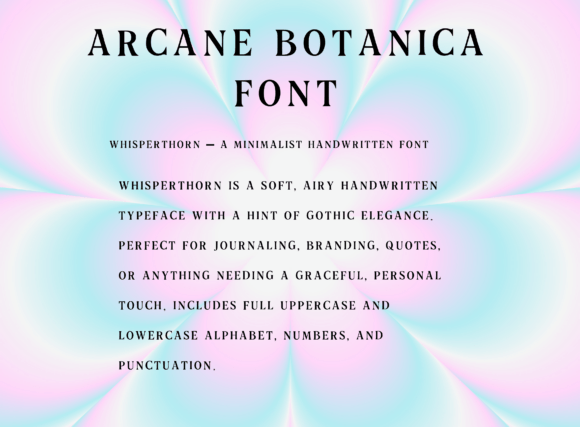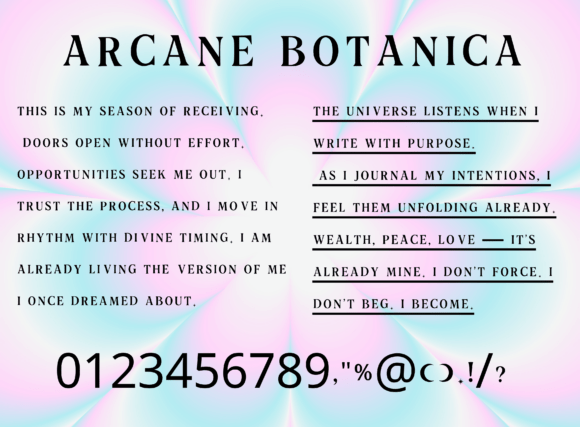
Discover the Enchanting World of Arcane Botanica Font
Are you a designer or crafter looking for a font that can add a touch of magic to your projects? Look no further than the Arcane Botanica Font. This whimsical serif font is specifically crafted for enchanting design projects, making it perfect for mystical branding, magical book covers, celestial quotes, tarot cards, and elegant display titles.
A Font that Embodies Mystery and Elegance
Arcane Botanica features a clean, serif structure with subtle vintage flair, giving it a unique and captivating appearance. The font includes uppercase letters, numbers, and punctuation, making it versatile and easy to use. Whether you’re designing a spellbook, a dreamy logo, or an artistic Instagram post, Arcane Botanica brings a touch of mystery and elegance to every letter.
Ideal for Spiritual, Feminine, Gothic, or Fantasy Aesthetics
This font is ideal for designers and crafters who specialize in spiritual, feminine, gothic, or fantasy aesthetics. The elegant and whimsical design of Arcane Botanica makes it perfect for projects that require a touch of mysticism and sophistication. From mystical branding to magical book covers, this font is sure to add a level of enchantment to your designs.
Arcane Botanica is a versatile font that can be used for a variety of design projects, including:
• Mystical branding: Create a magical brand identity with Arcane Botanica’s elegant and whimsical design.
• Magical book covers: Add a touch of mystery and enchantment to your book covers with this captivating font.
• Celestial quotes: Share inspiring and mystical quotes with Arcane Botanica’s beautiful and elegant design.
• Tarot cards: Create mystical and enchanting tarot cards with this font’s unique and captivating appearance.
• Elegant display titles: Use Arcane Botanica to add a touch of sophistication and elegance to your display titles.
Why Choose Arcane Botanica Font?
There are many reasons why designers and crafters choose Arcane Botanica Font for their projects. Here are a few:
• Unique and captivating design: Arcane Botanica’s whimsical serif design makes it stand out from other fonts.
• Versatile: This font includes uppercase letters, numbers, and punctuation, making it easy to use for various design projects.
• Elegant and mystical: Arcane Botanica’s design embodies mystery and elegance, making it perfect for spiritual, feminine, gothic, or fantasy aesthetics.
Tips for Using Arcane Botanica Font
Here are a few tips for using Arcane Botanica Font in your design projects:
• Experiment with font sizes: Arcane Botanica looks great in various font sizes, from large display titles to smaller body text.
• Pair with other fonts: Try pairing Arcane Botanica with other fonts to create a unique and captivating design.
• Use for headings and titles: This font is perfect for headings and titles, adding a touch of elegance and mysticism to your designs.
• Don’t be afraid to get creative: Arcane Botanica is a versatile font that can be used in many different ways, so don’t be afraid to experiment and try new things.
In conclusion, Arcane Botanica Font is a unique and captivating font that is perfect for designers and crafters looking to add a touch of magic to their projects. With its elegant and whimsical design, this font is ideal for spiritual, feminine, gothic, or fantasy aesthetics. Whether you’re designing a spellbook, a dreamy logo, or an artistic Instagram post, Arcane Botanica brings a touch of mystery and elegance to every letter.